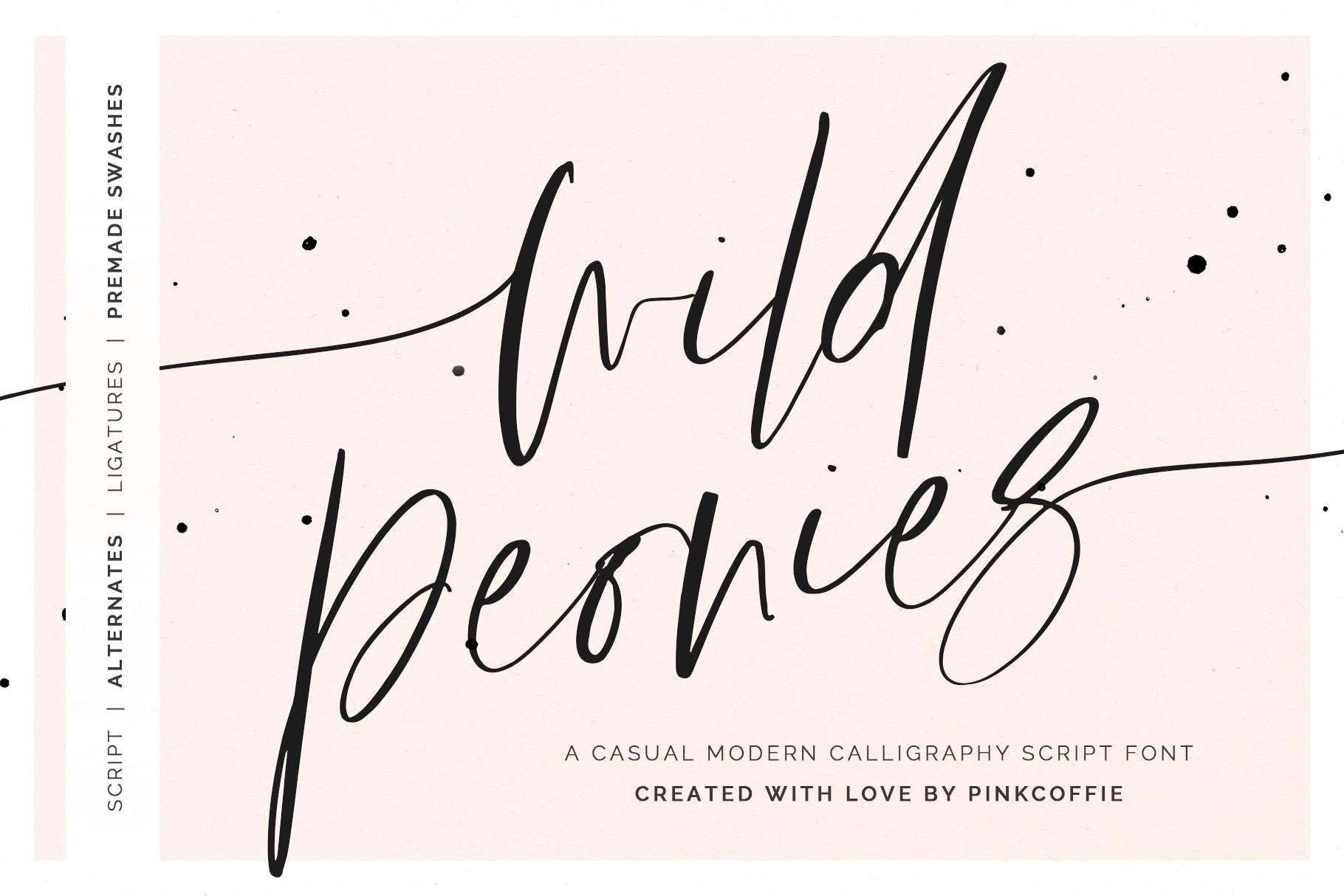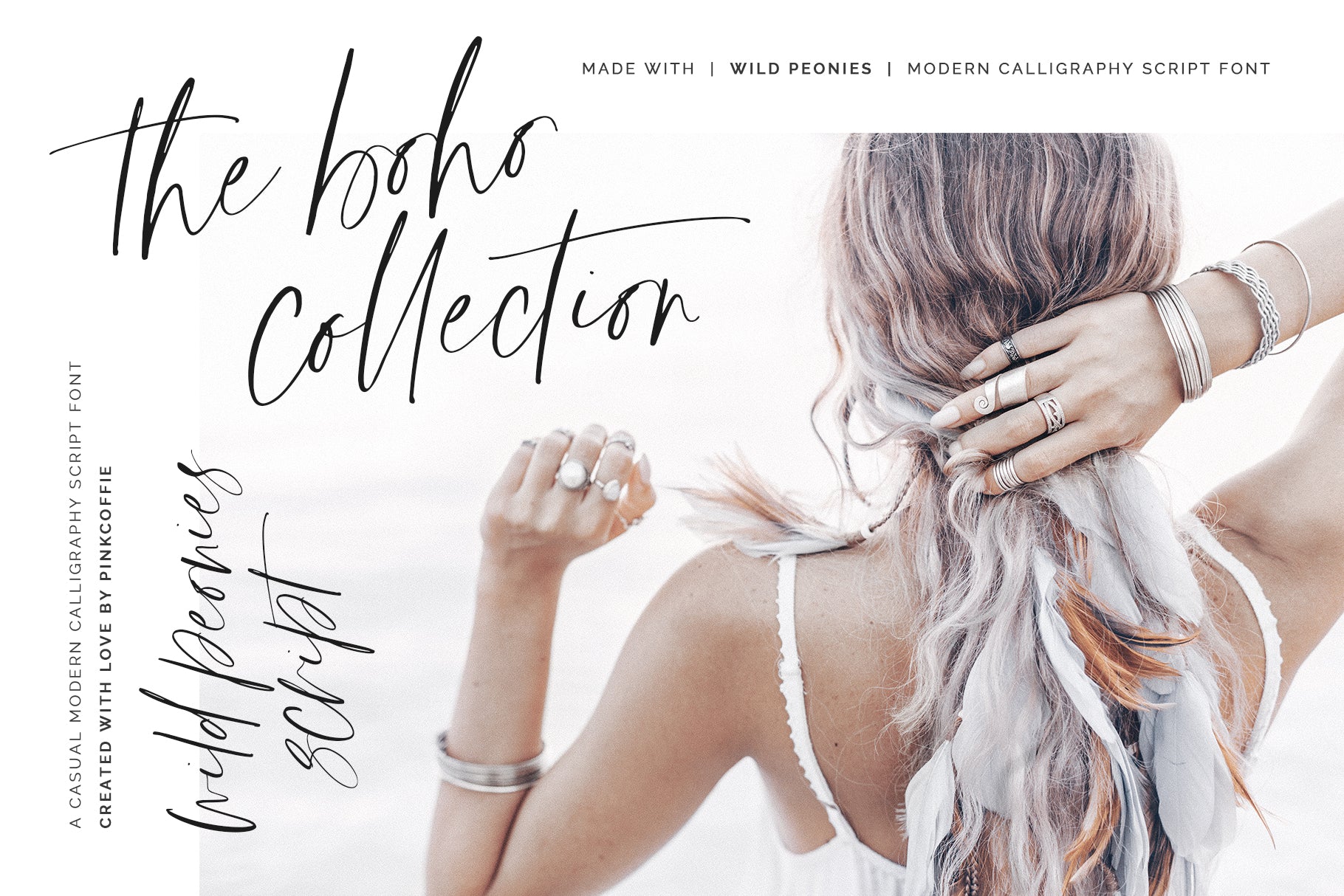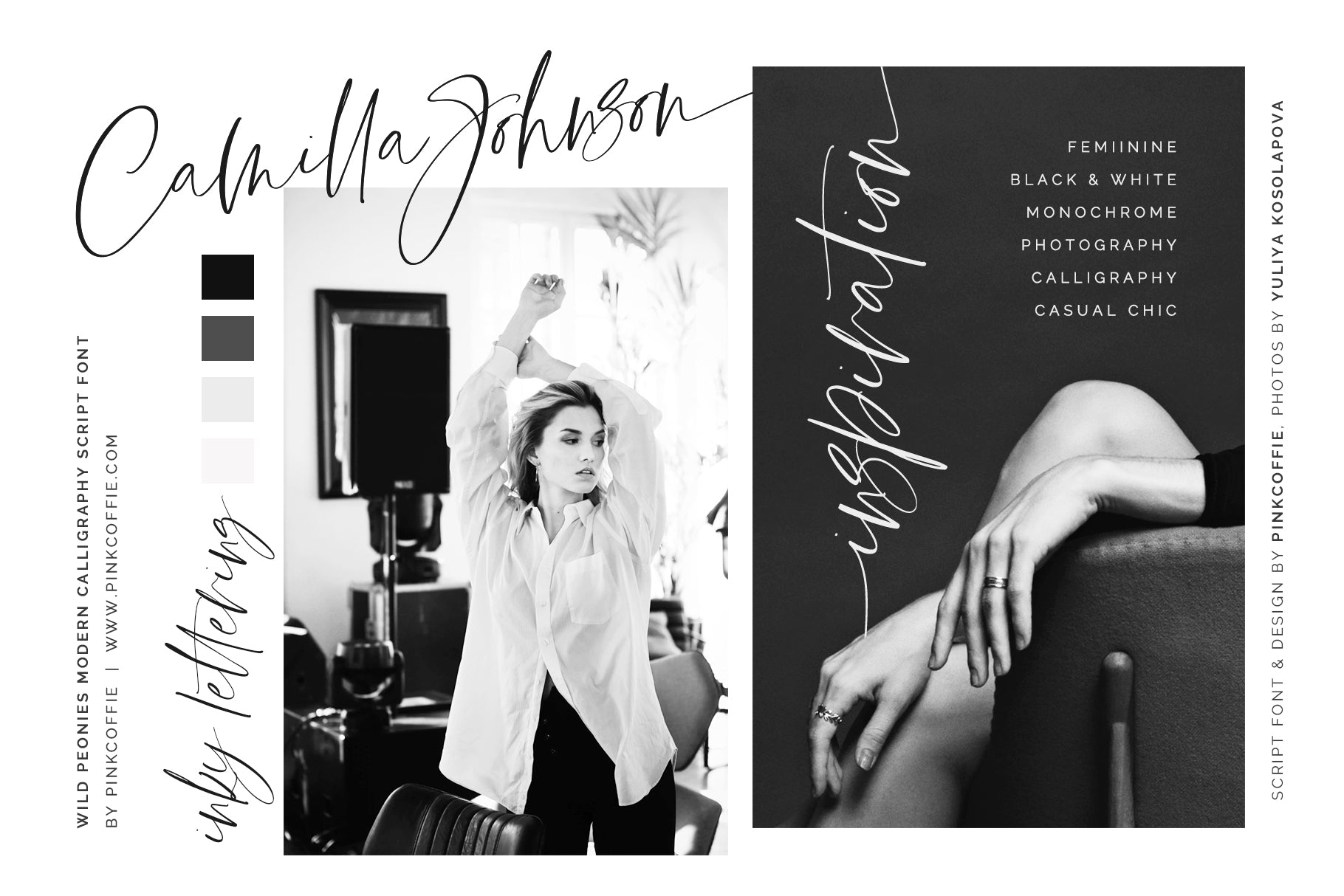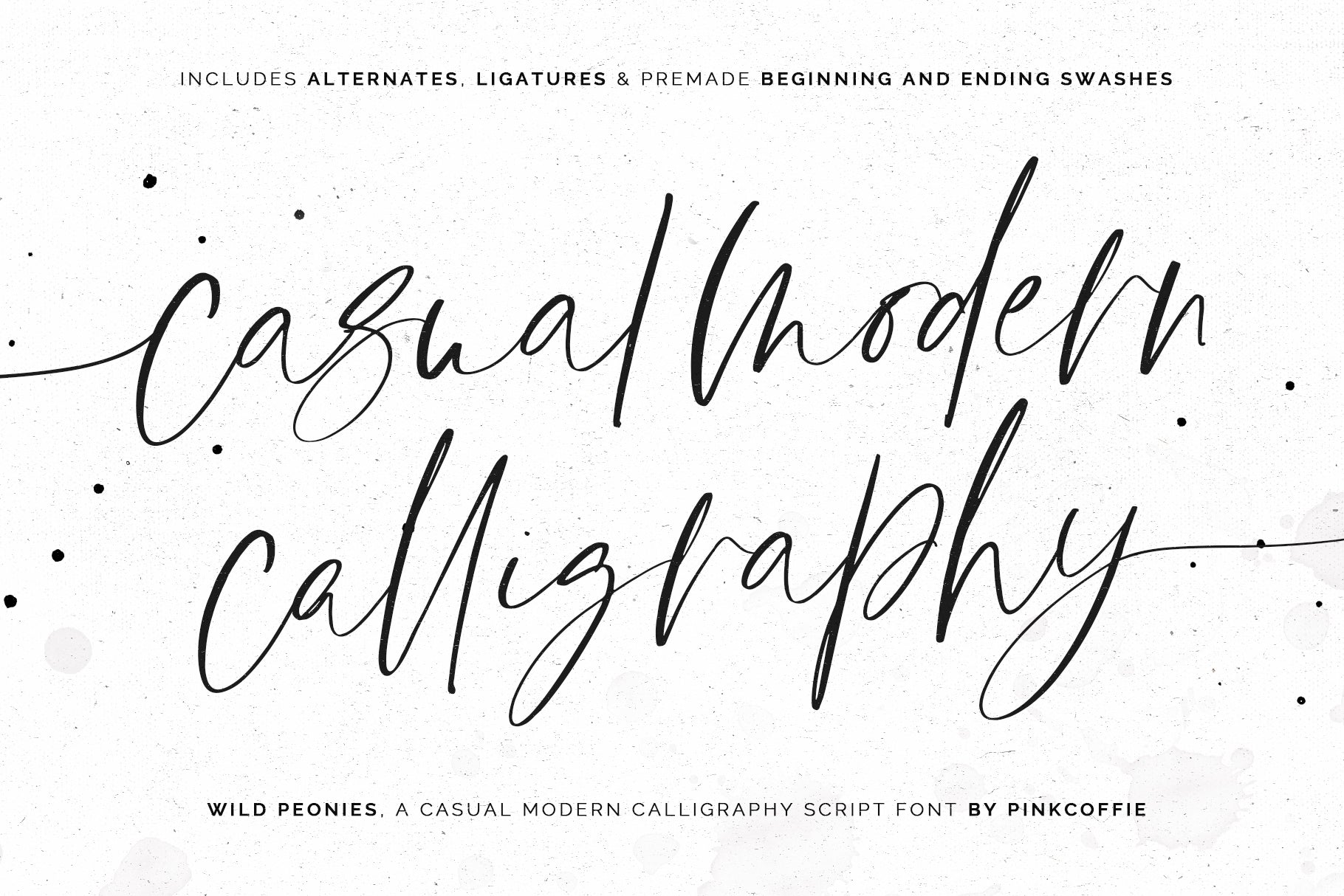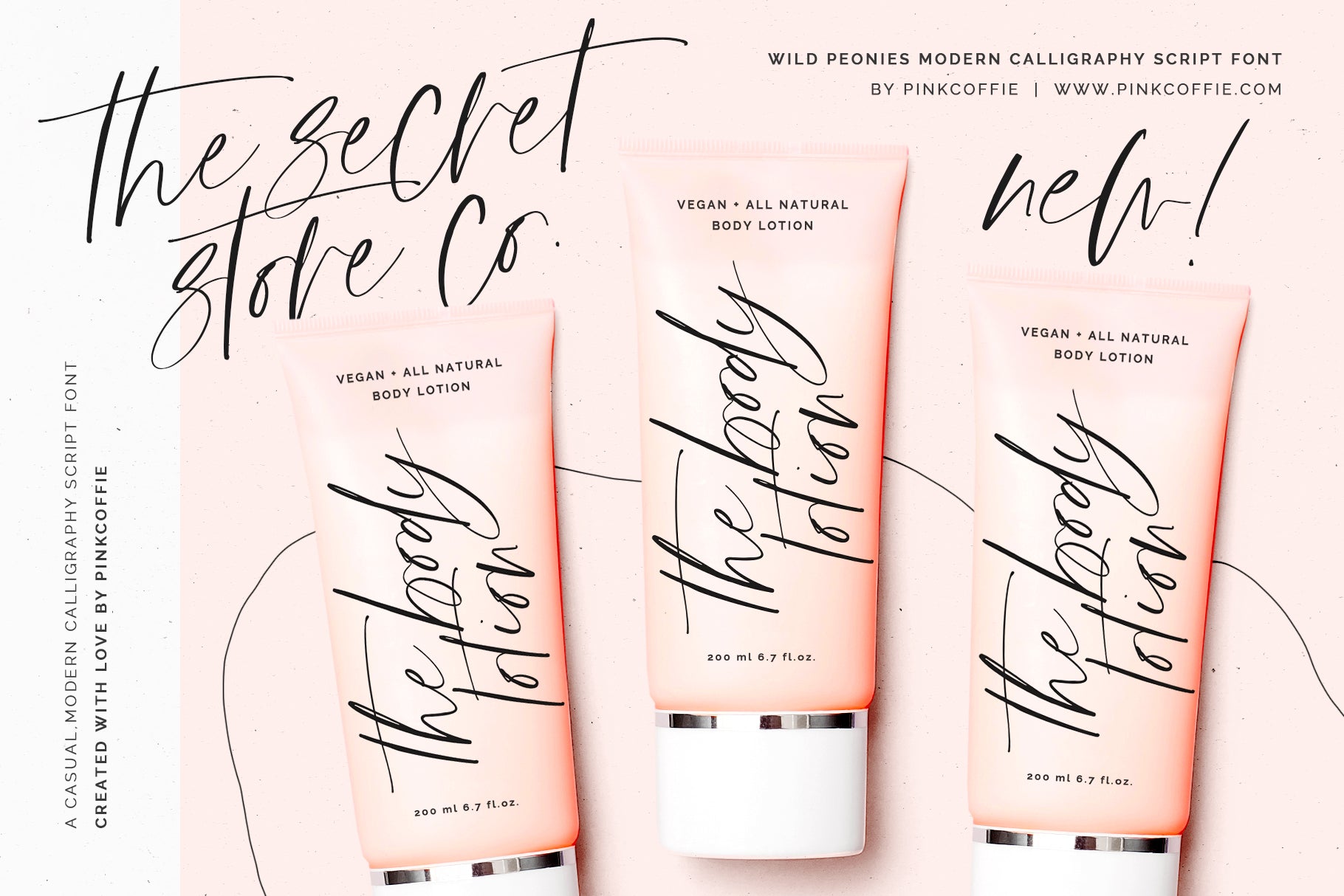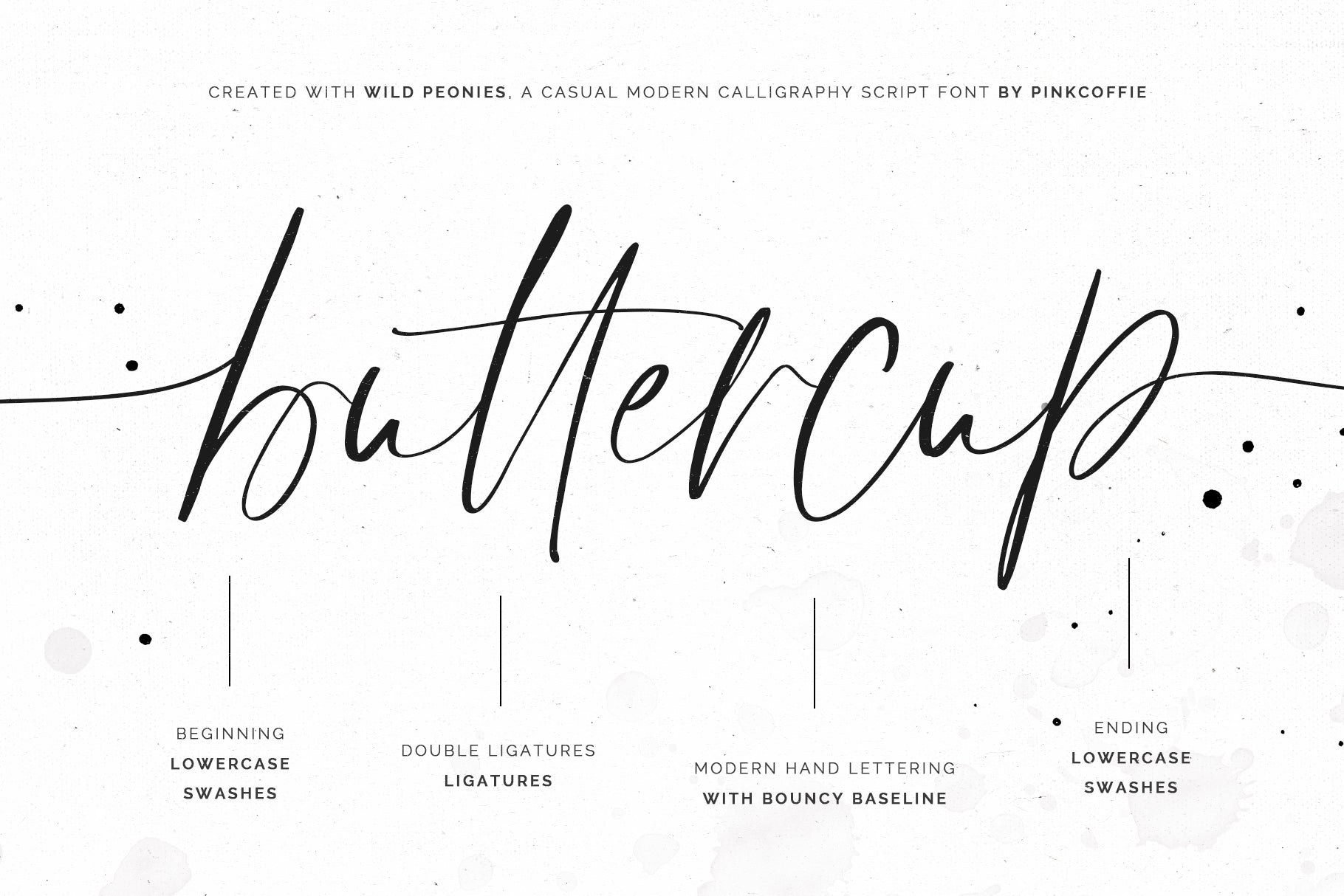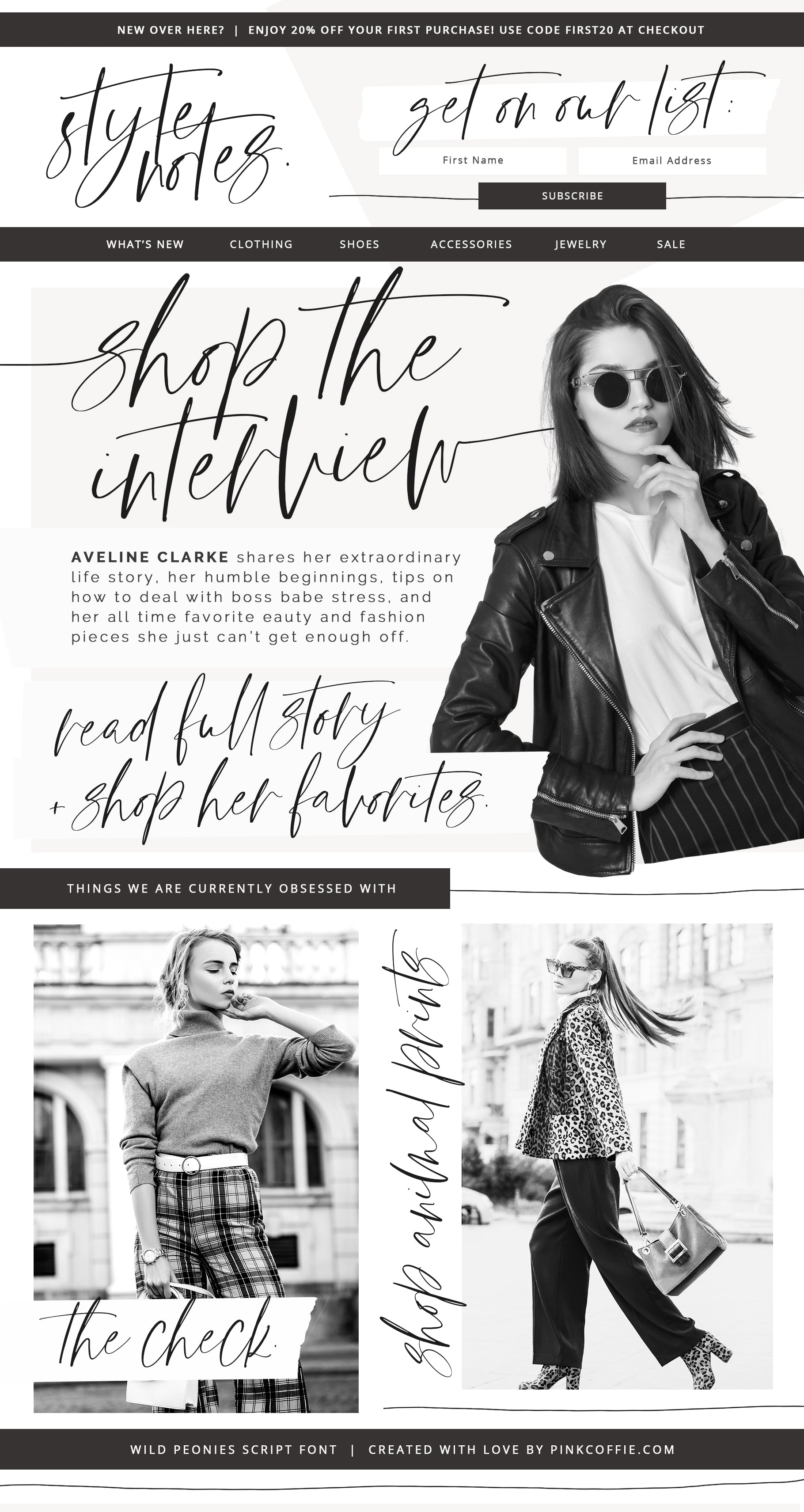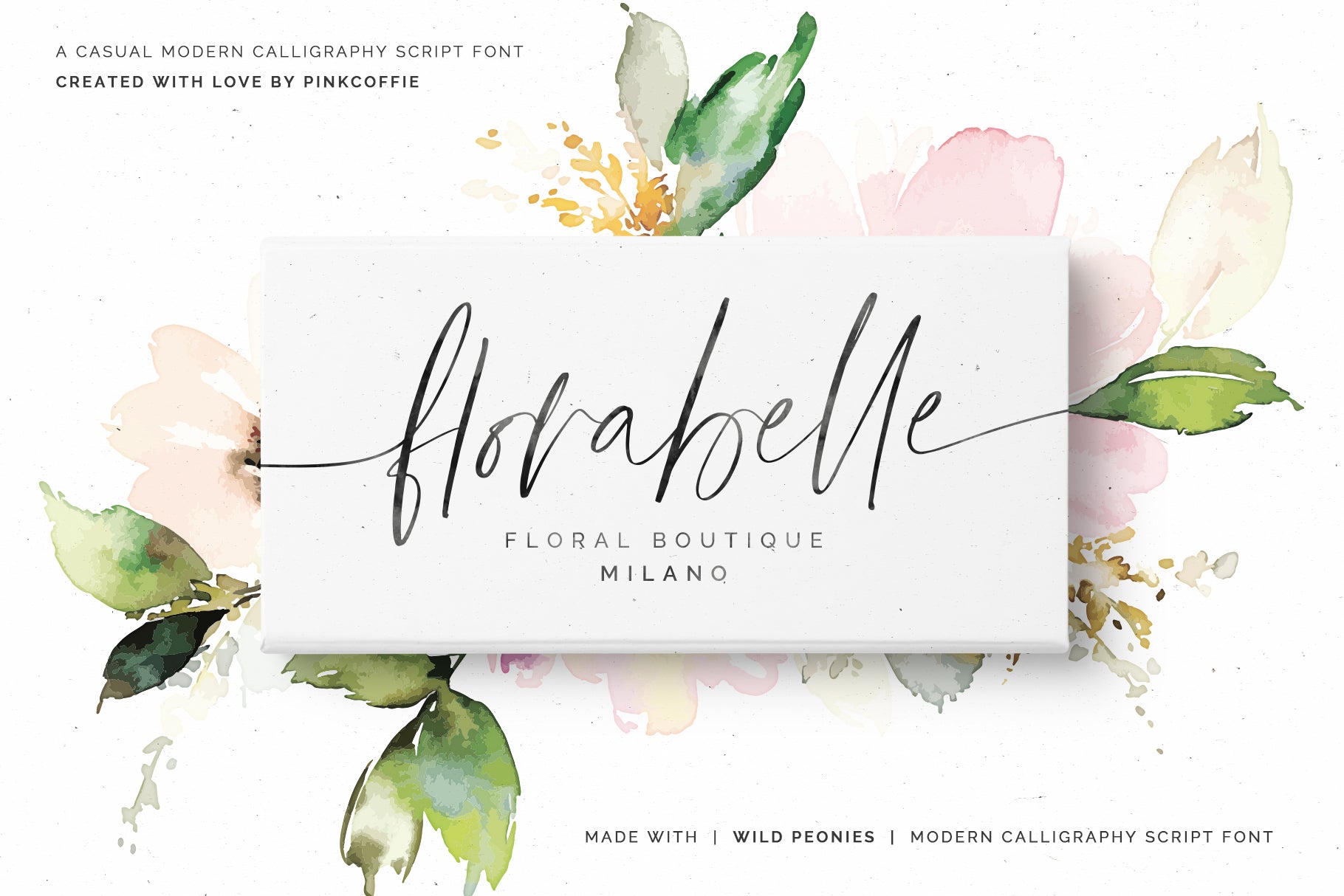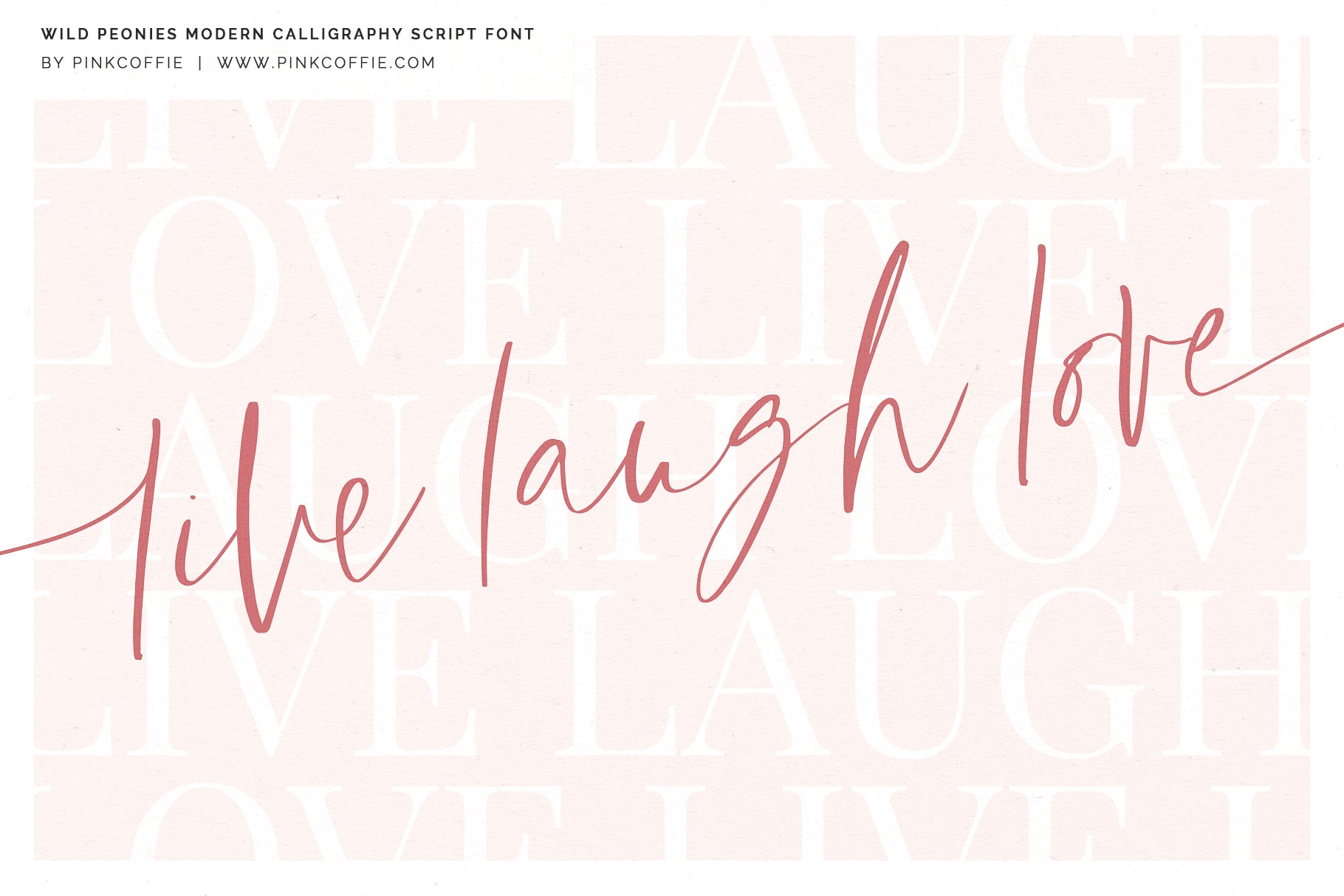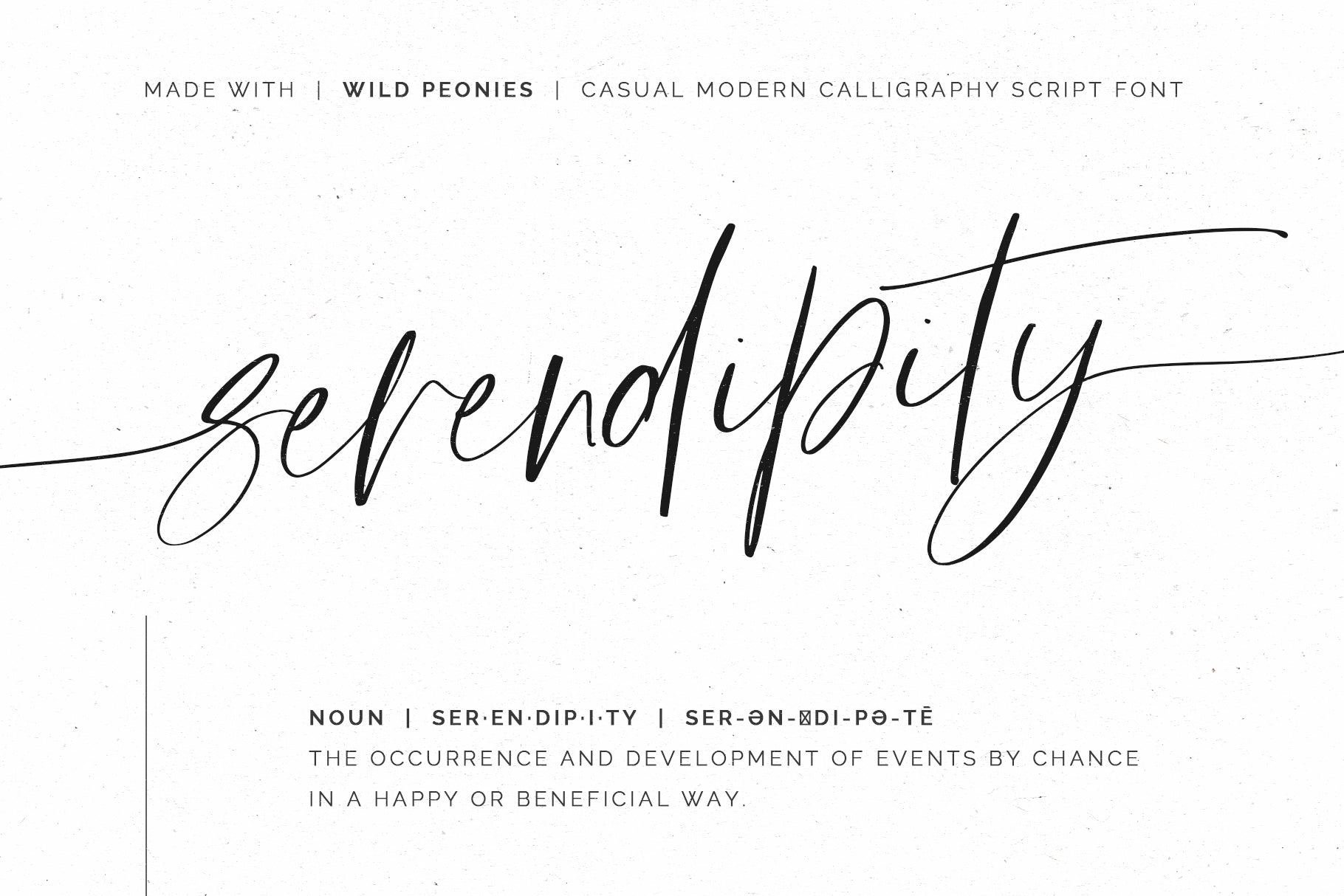
Wild Peonies
Say hello to Wild Peonies, a stylish modern calligraphy script font with a whole lot of wilderness and character.
Wild Peonies includes all regular uppercase and lowercase characters, numerals and punctuation, a full set of lowercase stylistic alternates, double-letter ligatures, and beginning and ending premade swashes for both the lowercase and lowercase alternates.
Wild Peonies can be used in a variety of projects, such as modern stationery, packaging, website graphics, apparel, wedding stationery, prints, quotes, social media graphics, planners, greeting cards, logos, branding, and much much more.